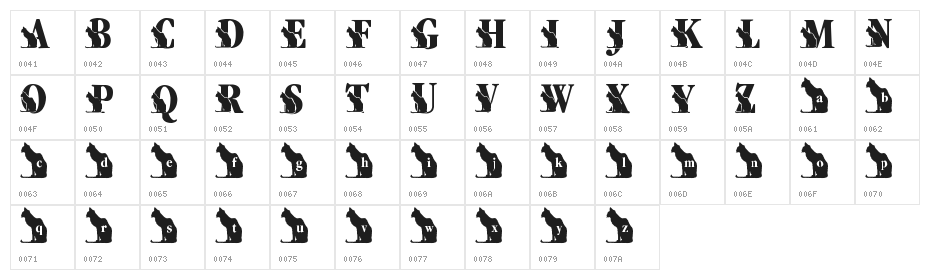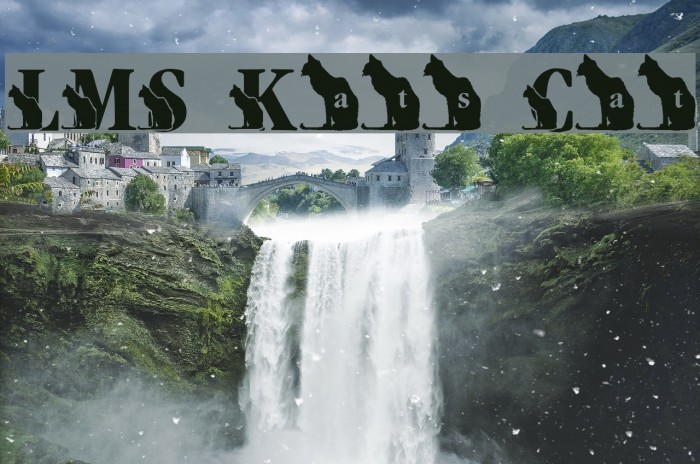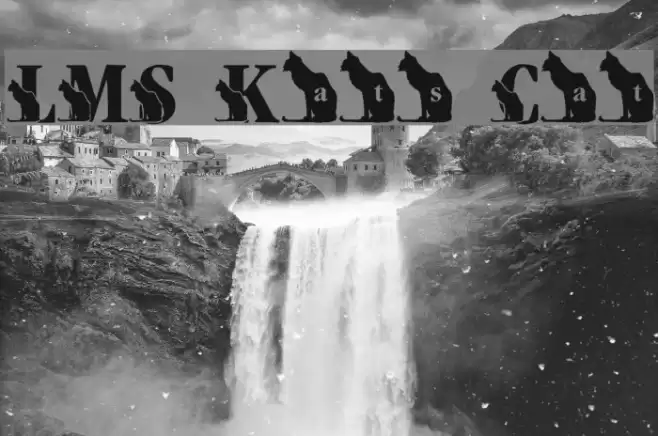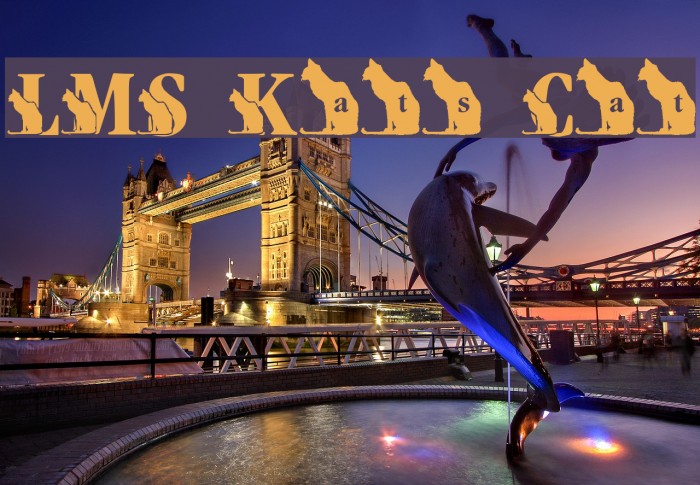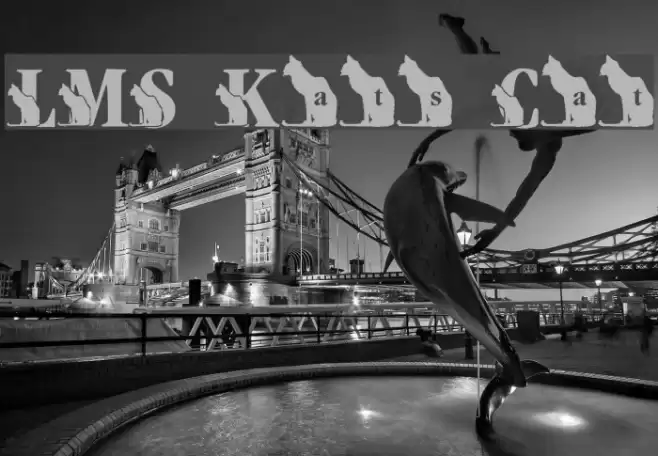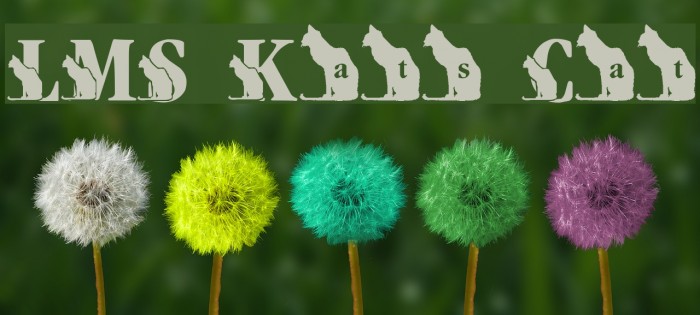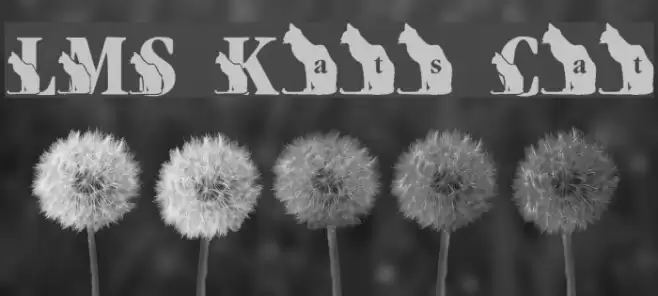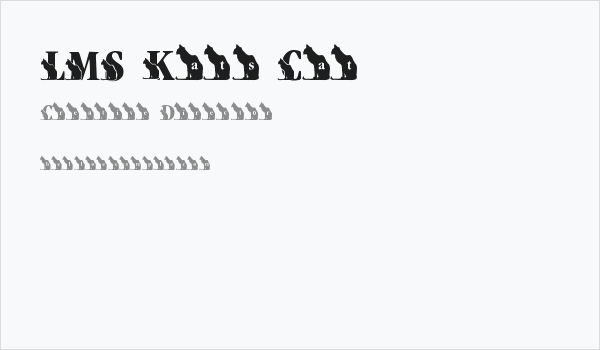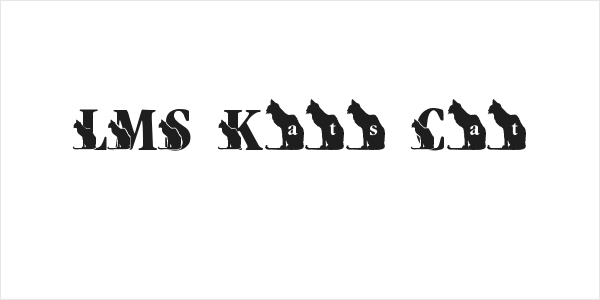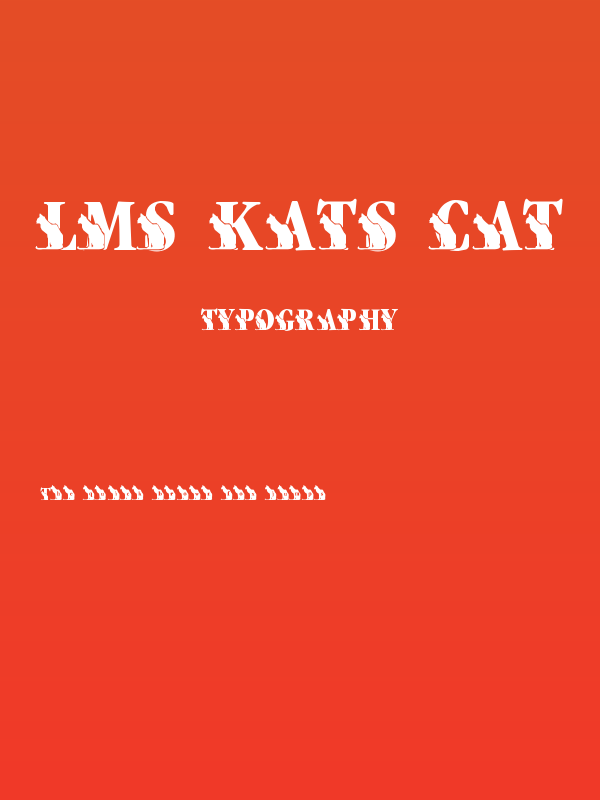
LMS Kat's Cat Font
LMS Kat's Cat Description
This playful and whimsical font incorporates the silhouette of a cat into each letter, creating a unique and eye-catching design. The letters are bold and have a decorative style, with each character featuring a cat motif that adds a sense of fun and creativity. The font is perfect for projects that require a touch of personality and charm, making it ideal for children's books, pet-related branding, or playful event invitations. Its distinct style ensures that it stands out, capturing attention with its creative integration of feline imagery.
| Proposed Projects | Ideal for children's books, pet branding, playful invitations, and creative posters. |